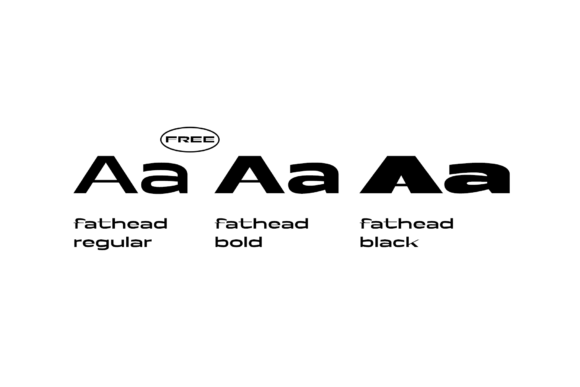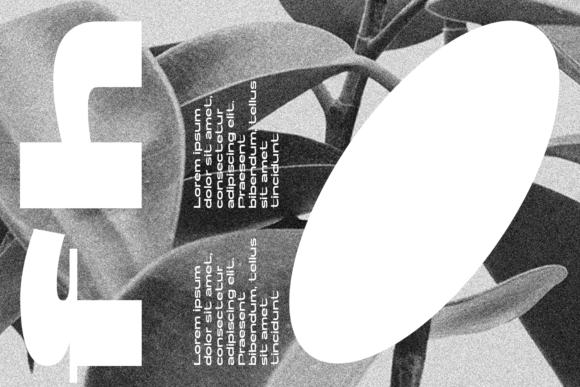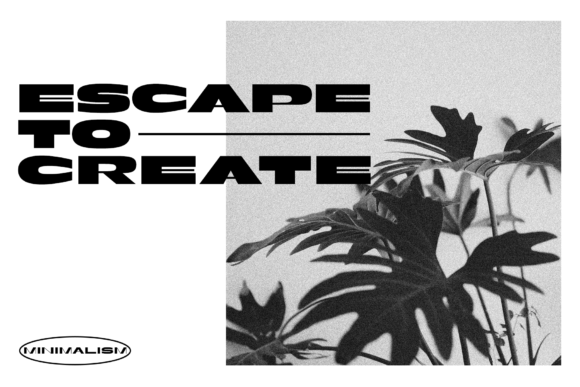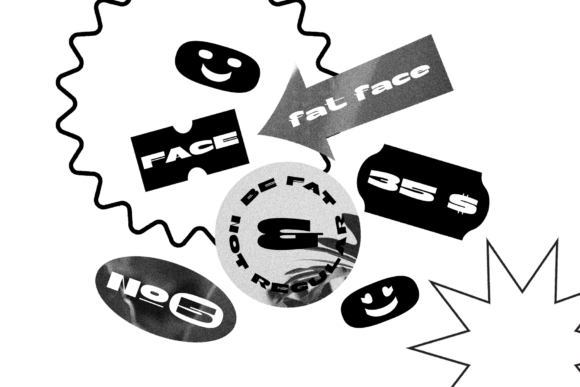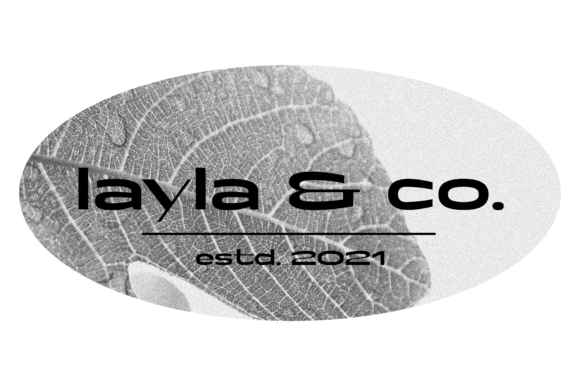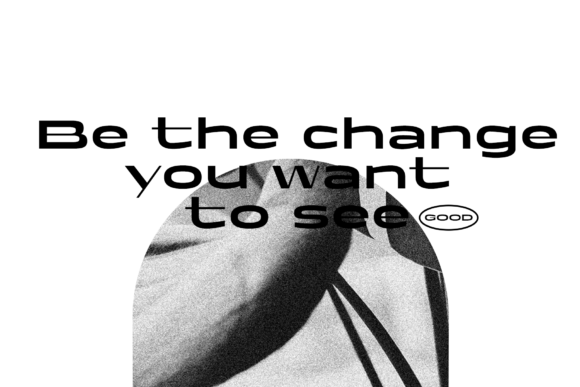
Introduction to Fathead Font
As a designer, there’s nothing quite like the thrill of seeing a project come together. You’ve spent hours pouring over every detail, from the color palette to the typography, and finally, it’s time to bring it all to life. And that’s exactly where the Fathead Font comes in – a cool and modern display font that’s guaranteed to make your designs stand out.
With its sleek, high-quality lines and transparent background, the Fathead Font is the perfect design resource for any creative project. Whether you’re working on a poster, flyer, or print, this font is sure to add a touch of sophistication and style. And the best part? It’s available for free download, making it an invaluable resource for designers of all levels.
Fathead Font Key Features
- High-quality design resource for creative projects, offering a unique and modern aesthetic.
- Comes with a transparent background, allowing for seamless integration into various design environments.
- Designed to be highly scalable, with a resolution of 300 DPI, making it suitable for use in a variety of creative projects.
- Features a bold and eye-catching design, perfect for use in logos, branding, and other high-impact applications.
Honest Review: Fathead Font
I recently stumbled upon the Fathead Font, and I must say, it’s been a game-changer for my creative projects. As a designer, I’m always on the lookout for high-quality design resources that can elevate my work. The Fathead Font definitely delivers.
- ✨ High-quality font with a transparent background, making it perfect for overlaying on images.
- ✨ Great for creating eye-catching graphics and designs that stand out from the crowd.
While the Fathead Font is an excellent design resource, there are a few limitations to consider:
- ⚠️ Limited font sizes and styles available, which may not be suitable for all creative projects.
Overall, I’m thoroughly impressed with the Fathead Font. It’s a valuable addition to any designer’s toolkit, and I’m excited to see how it will enhance my future creative projects.
Tips for Getting the Most Out of Fathead Font
Use the Fathead Font on a transparent background to create a high-quality design.
Combine the Fathead Font with other design resources to create a unique and creative project.
The Fathead Font is commonly used in logos, branding materials, and marketing campaigns.
It’s also used in social media graphics, posters, and flyers.
The Fathead Font is a versatile design resource that can be used in a variety of creative projects.
Is the Fathead Font suitable for use in digital design?
Yes, the Fathead Font is designed to be highly legible and versatile, making it suitable for use in a variety of digital design contexts, from web design to mobile app design. Its high-quality design and transparent background make it easy to use in a range of design software, including Adobe Creative Cloud applications.